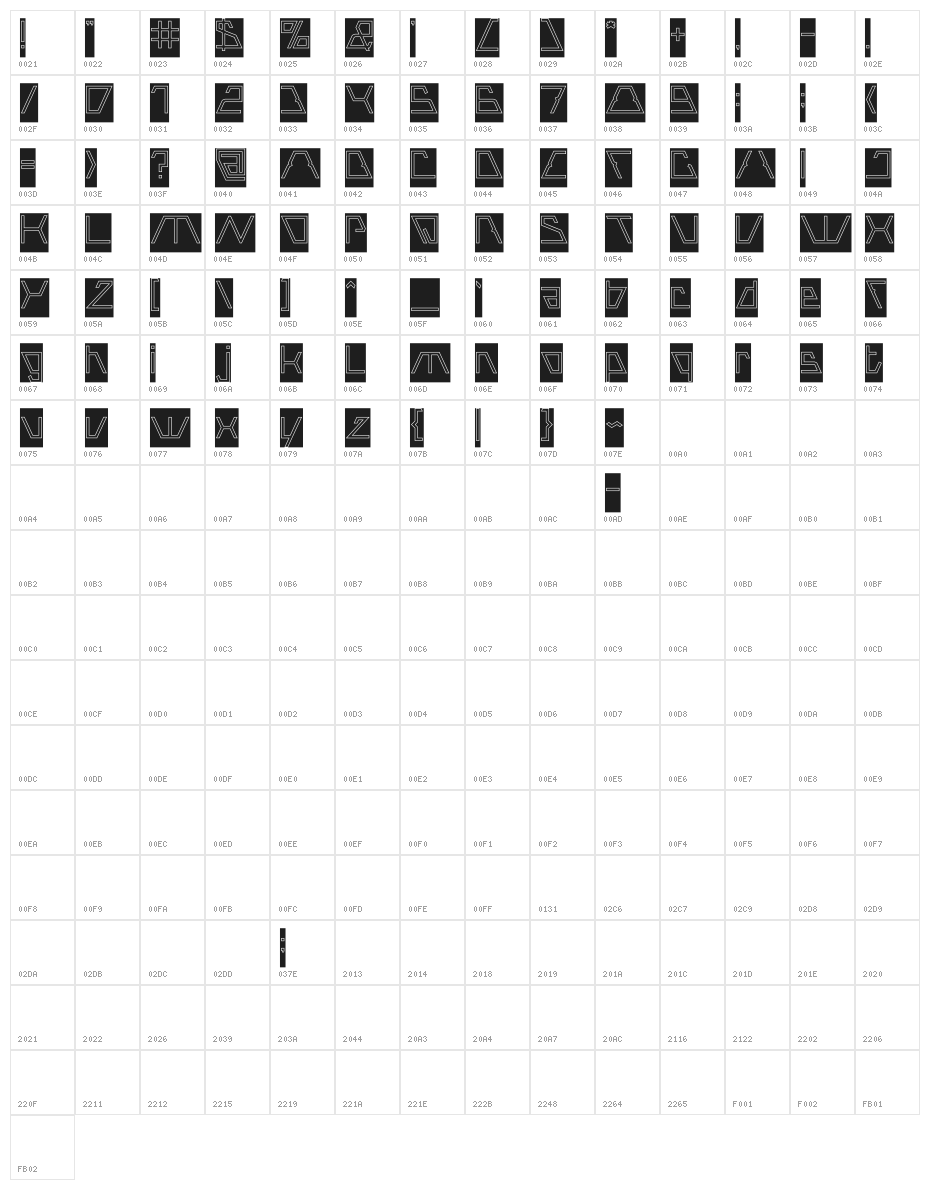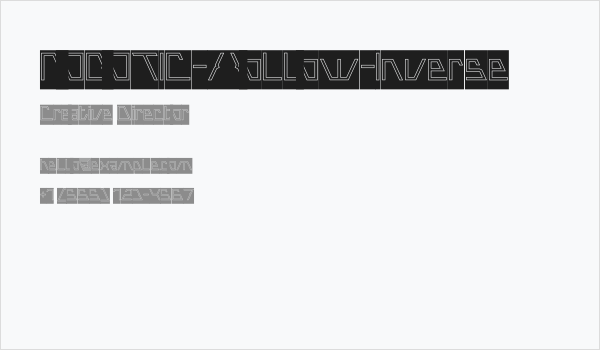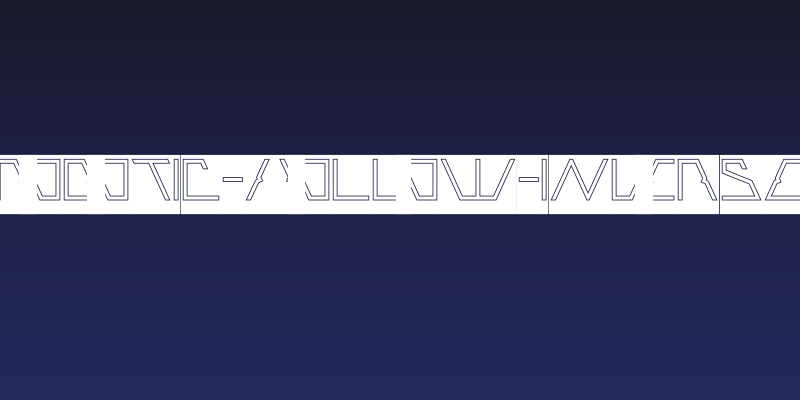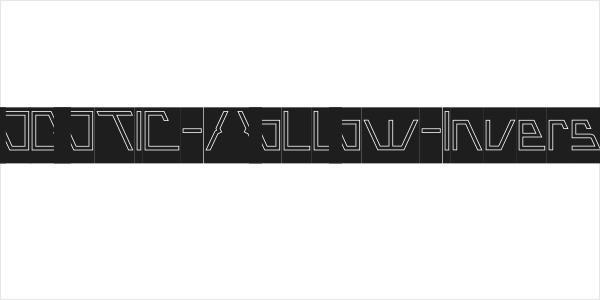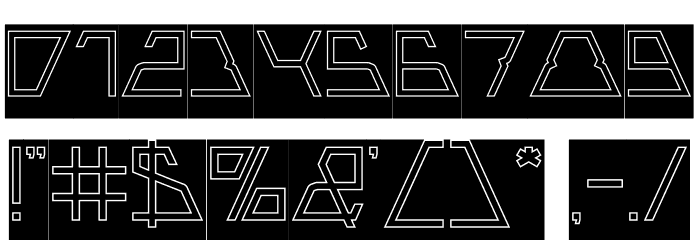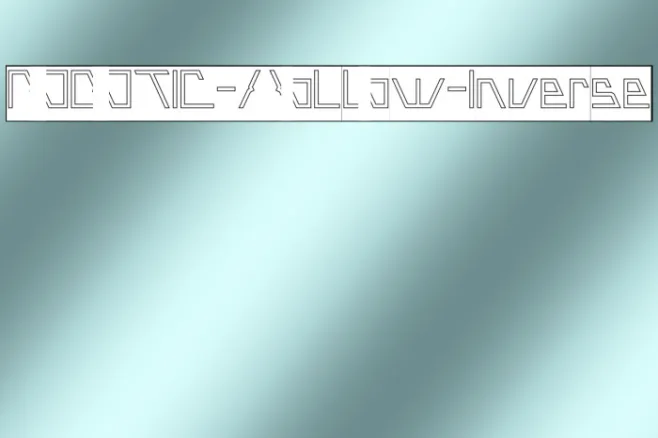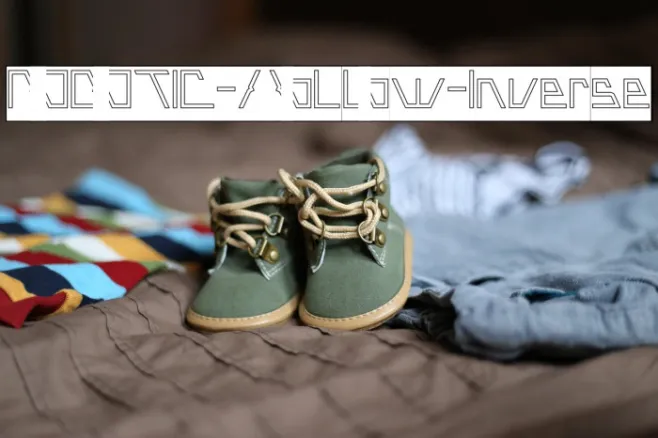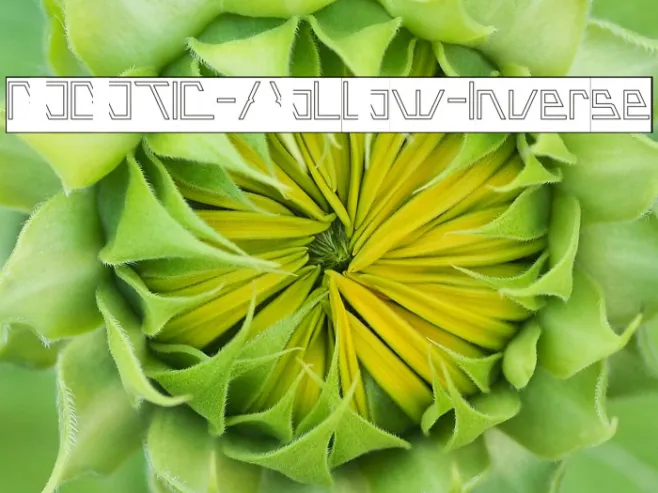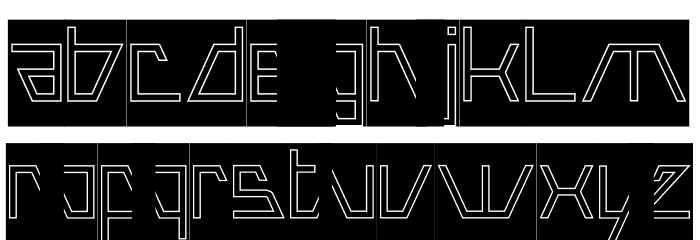
ROBOTIC-Hollow-Inverse Font
ROBOTIC-Hollow-Inverse Description
This font features a futuristic, geometric design with hollow, inverse letterforms. Each character is constructed with angular lines and sharp corners, creating a robotic and mechanical aesthetic. The uppercase and lowercase letters maintain a consistent style, emphasizing a uniform and structured appearance. Numbers and special characters follow the same design principles, ensuring a cohesive look across all glyphs. The font's unique style makes it stand out, ideal for projects that require a modern and technological feel.
ROBOTIC-HOLLOW-INVERSE UPPERCASE
ROBOTIC-HOLLOW-INVERSE LOWERCASE
ROBOTIC-HOLLOW-INVERSE OTHER CHARS
| Proposed Projects | Ideal for technology branding, sci-fi posters, video game titles, and digital interfaces. |